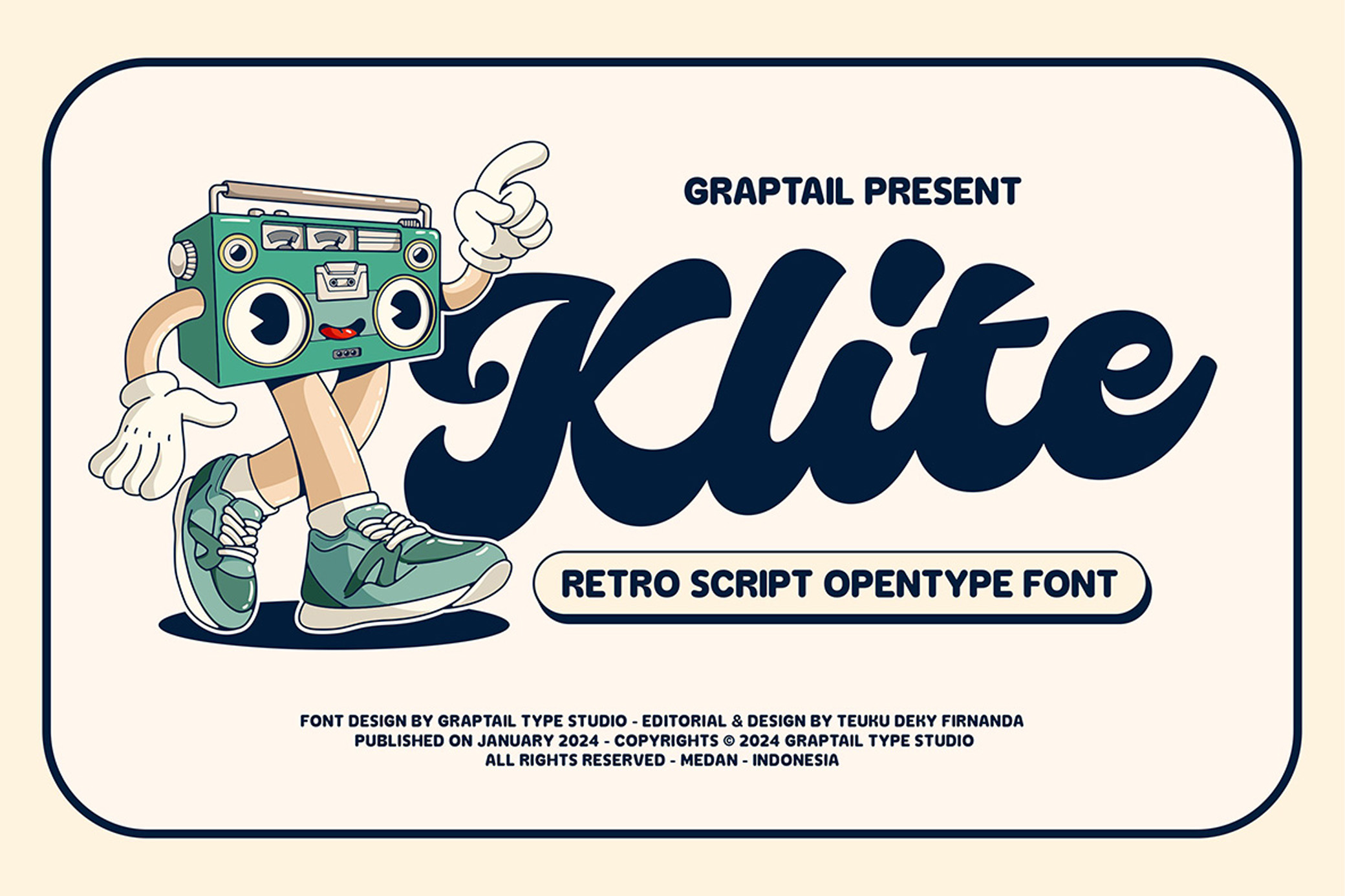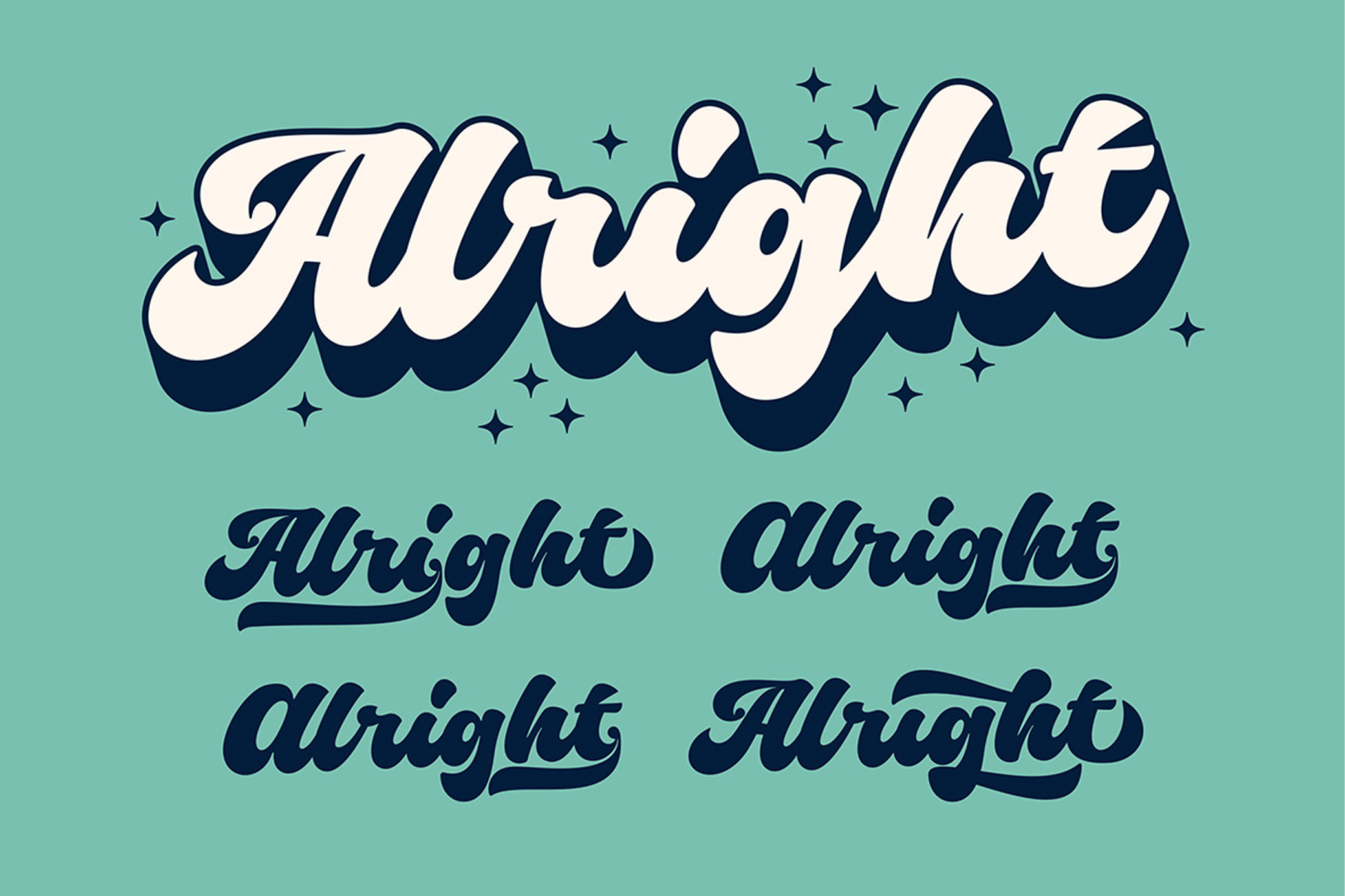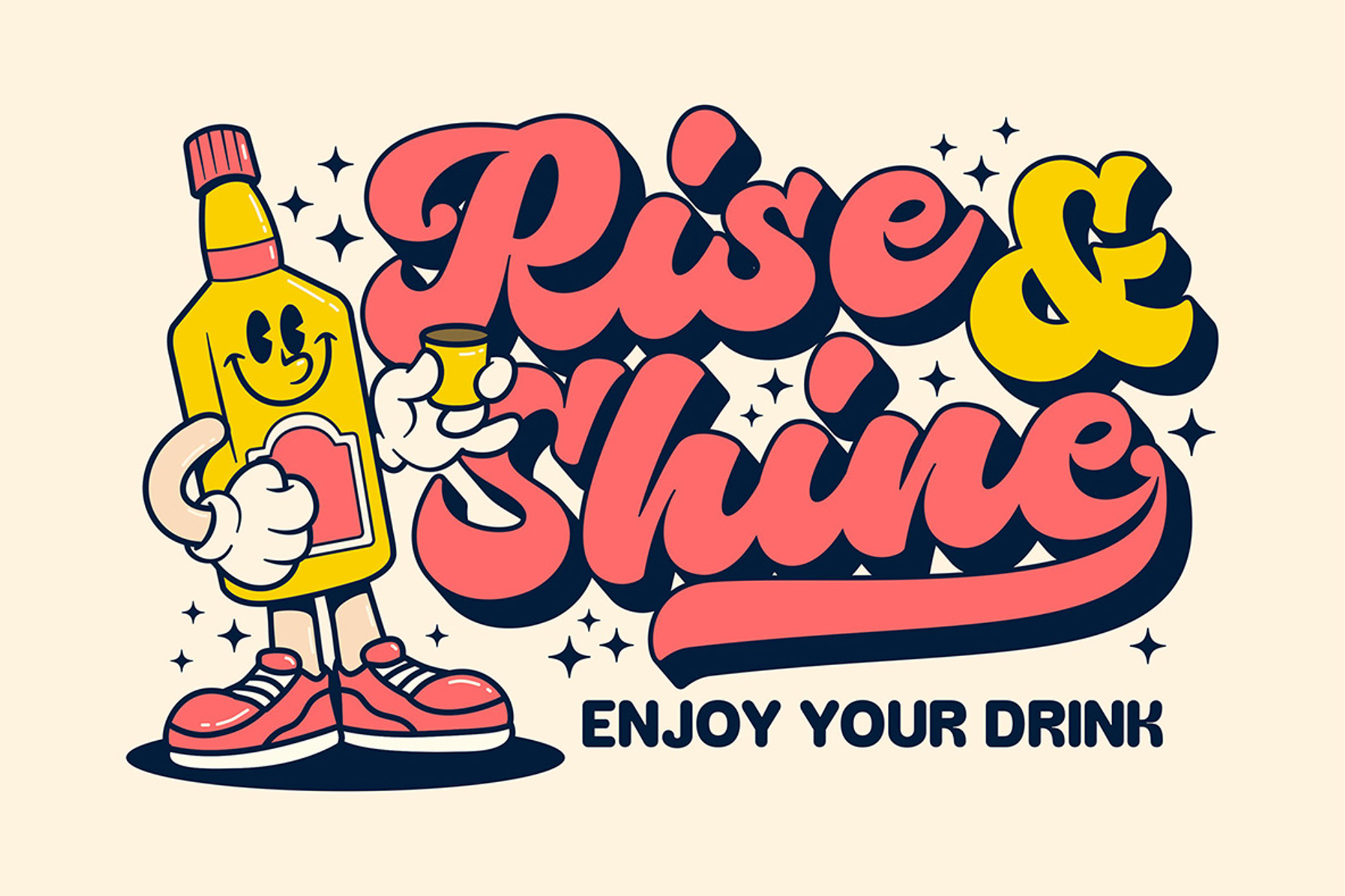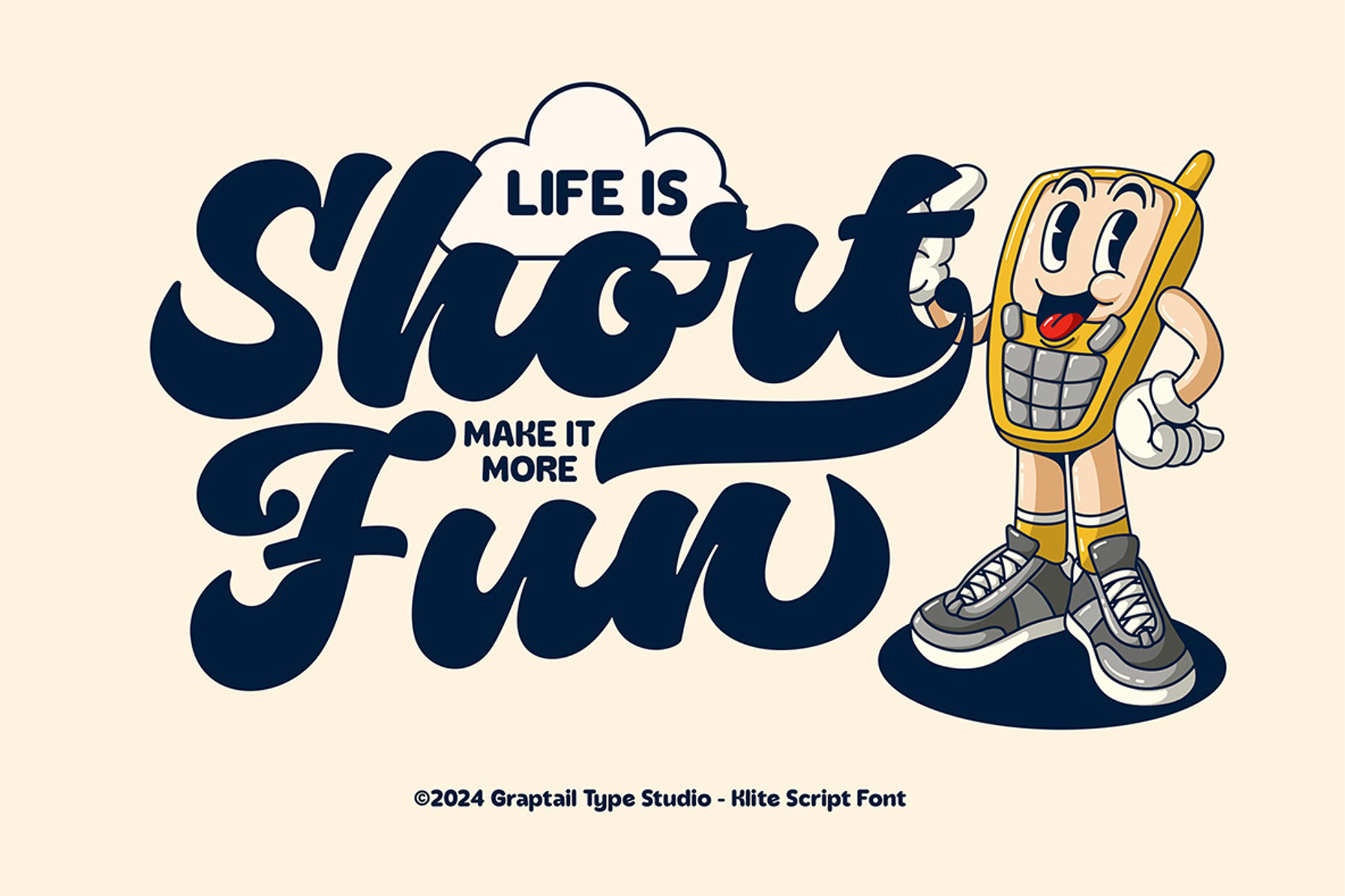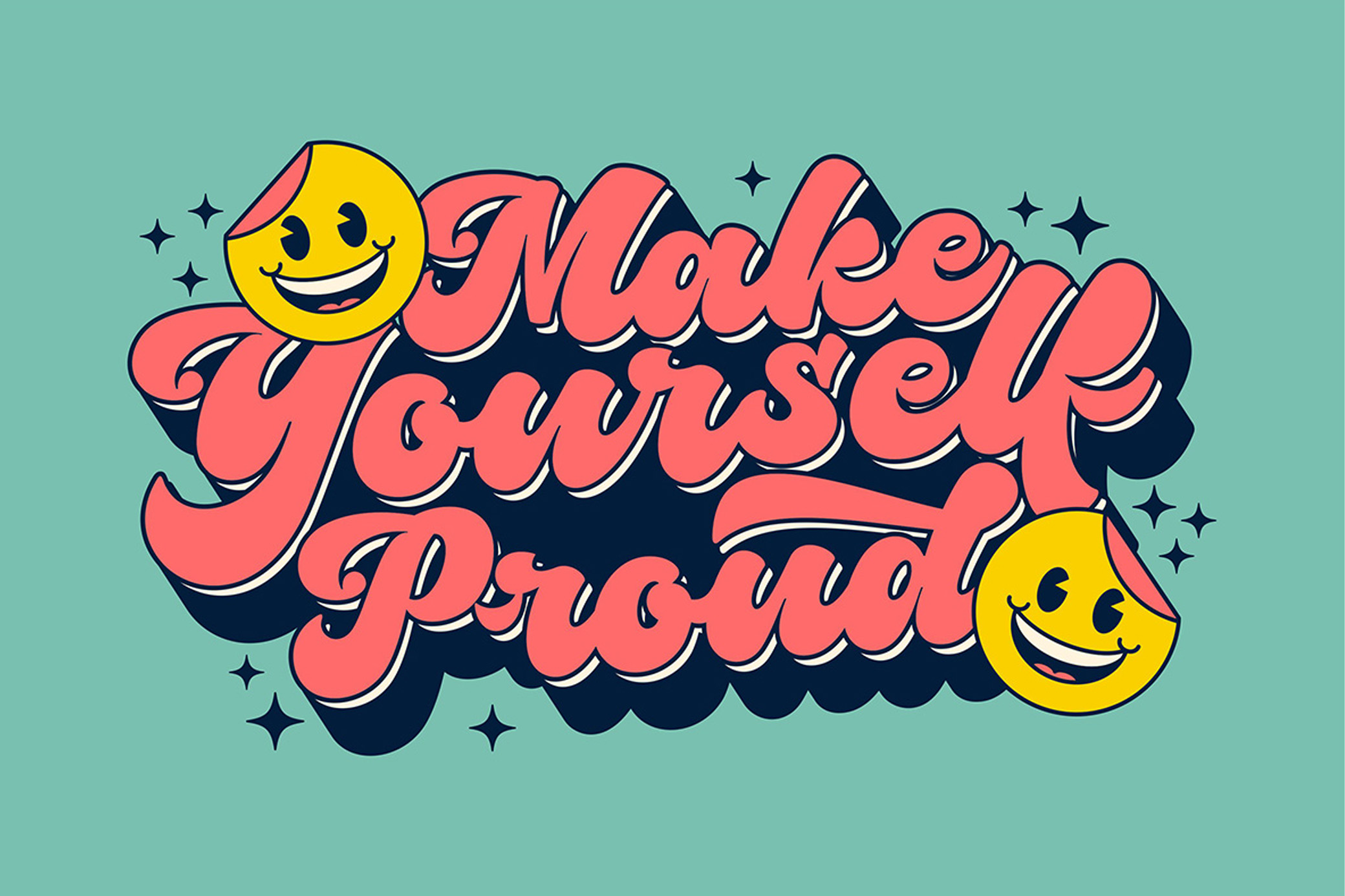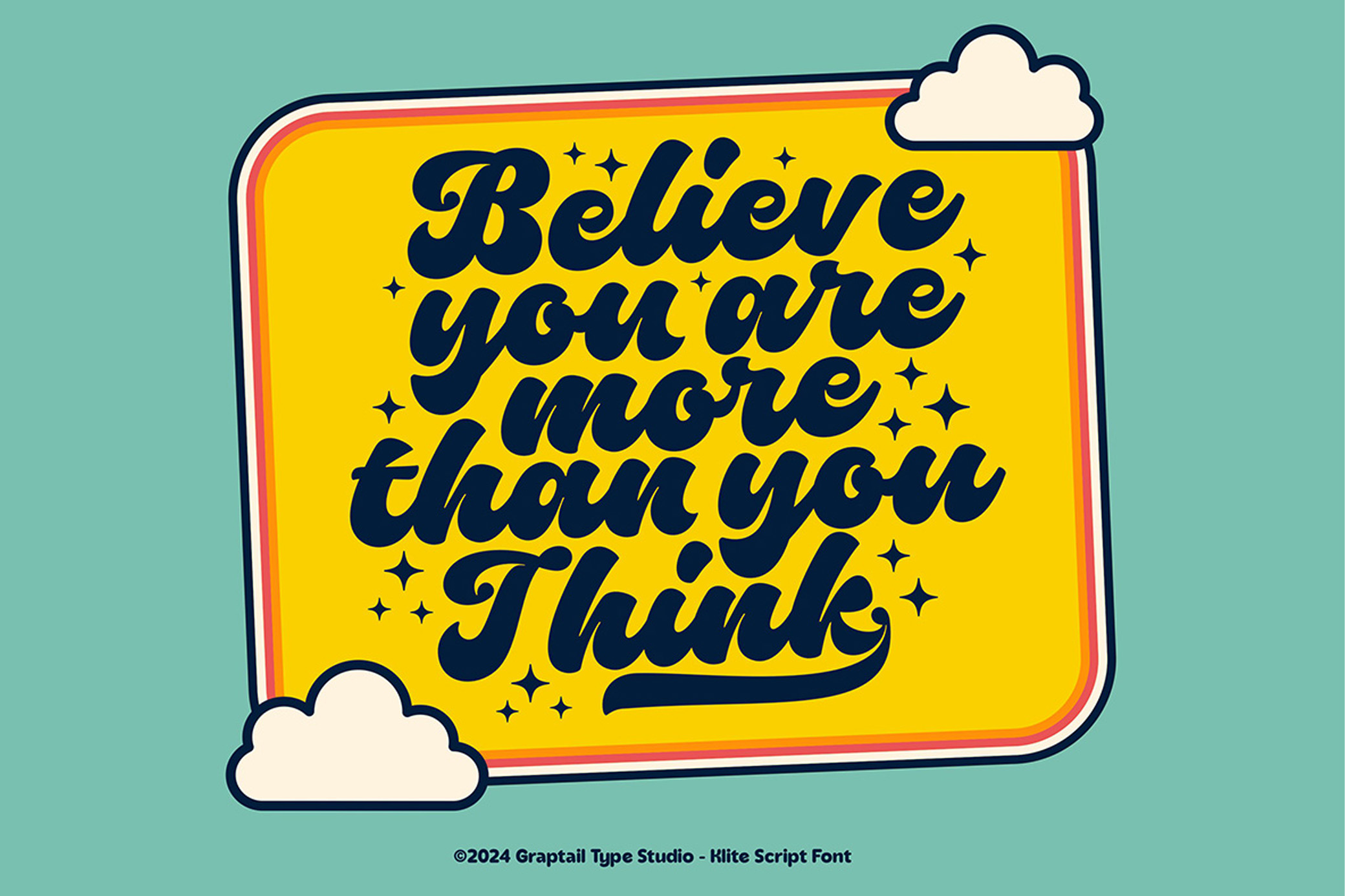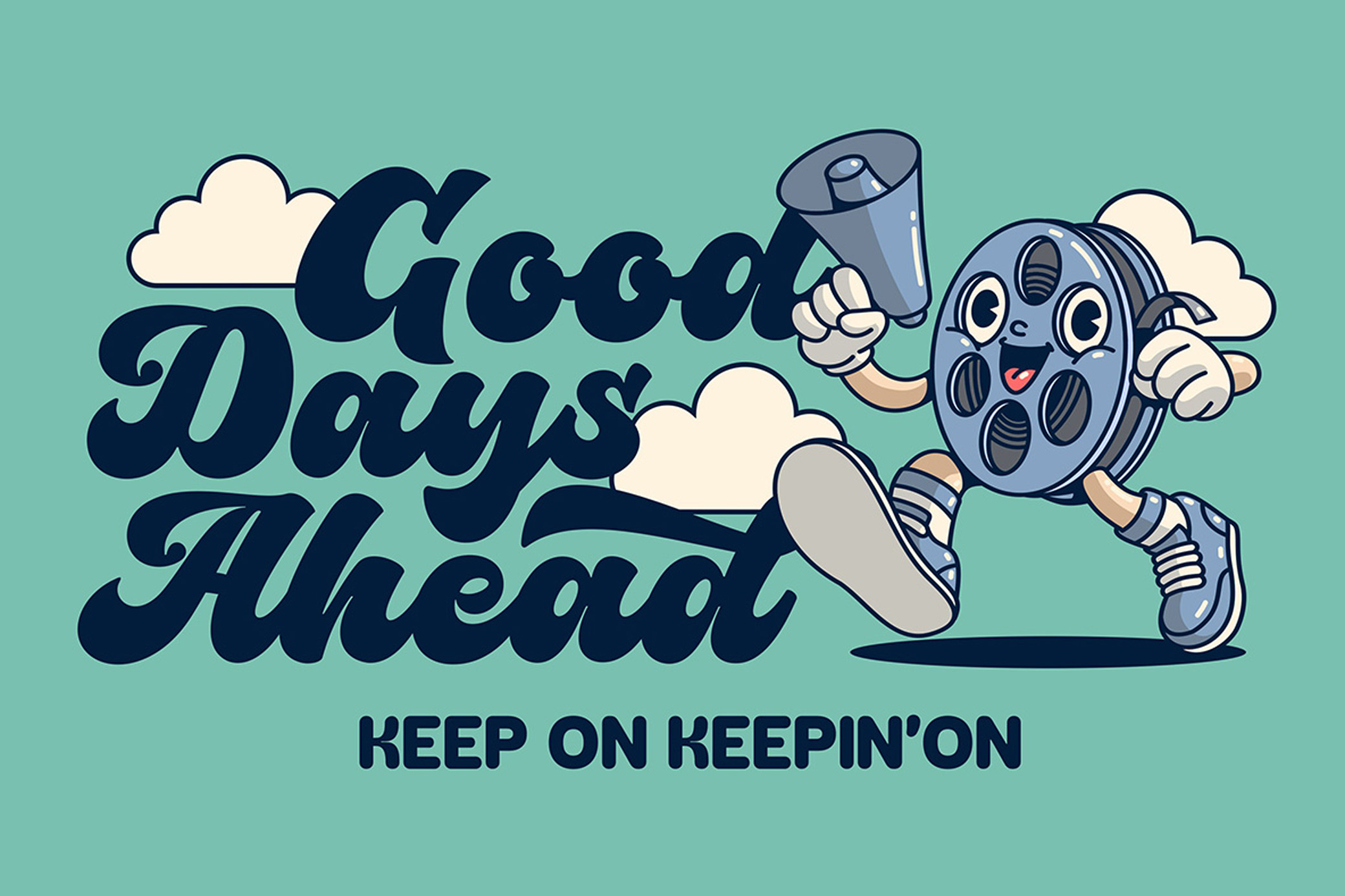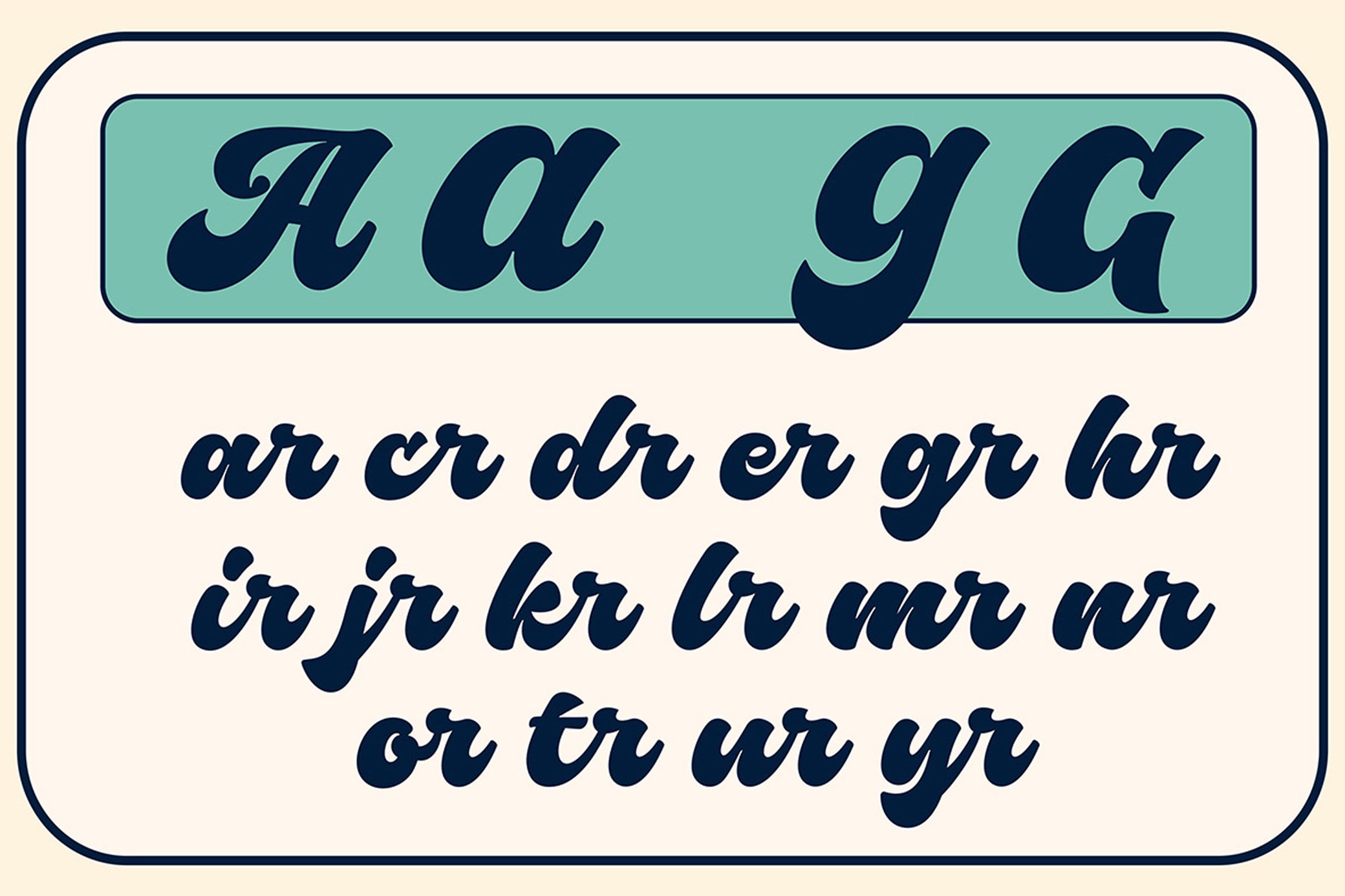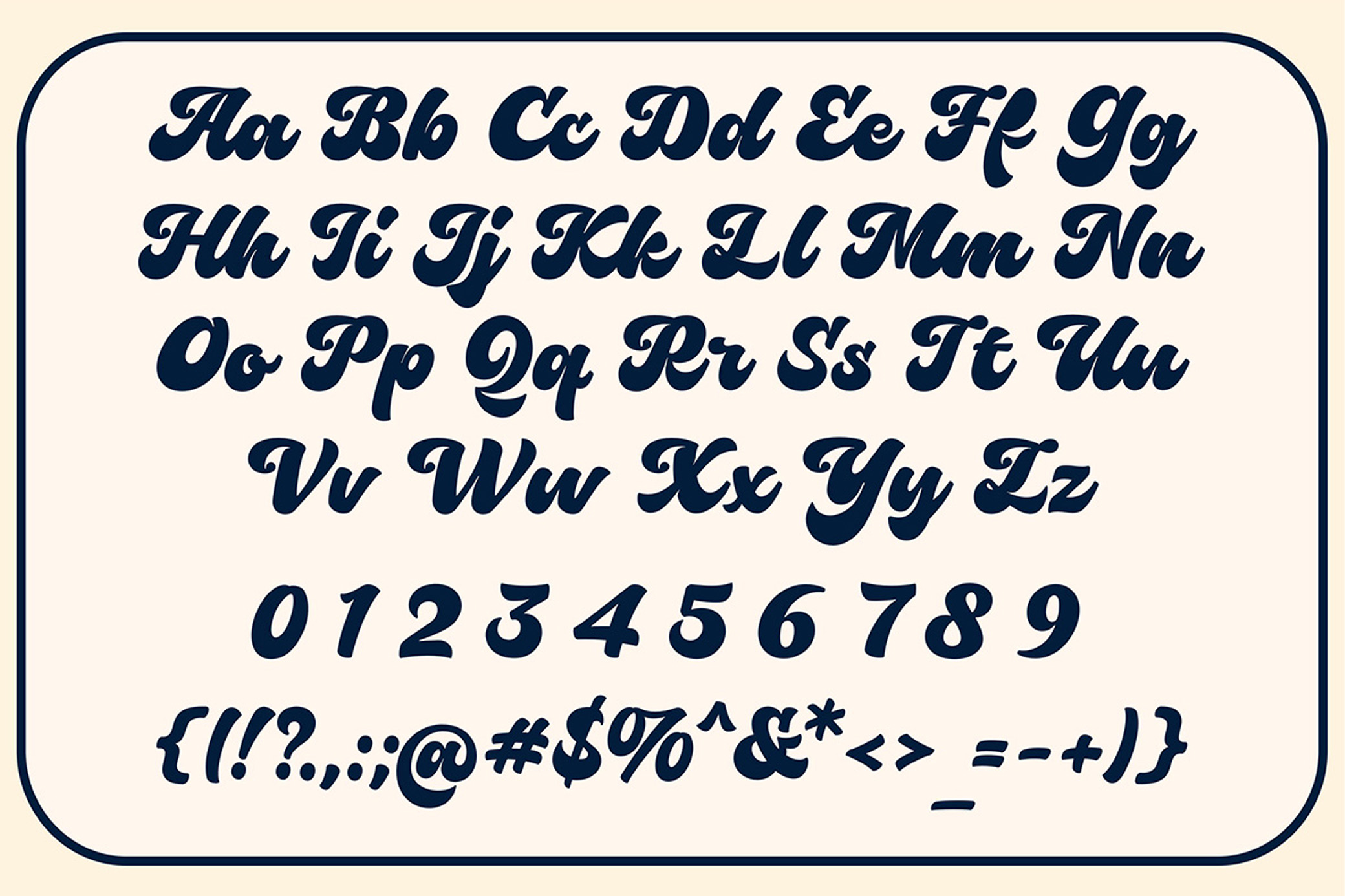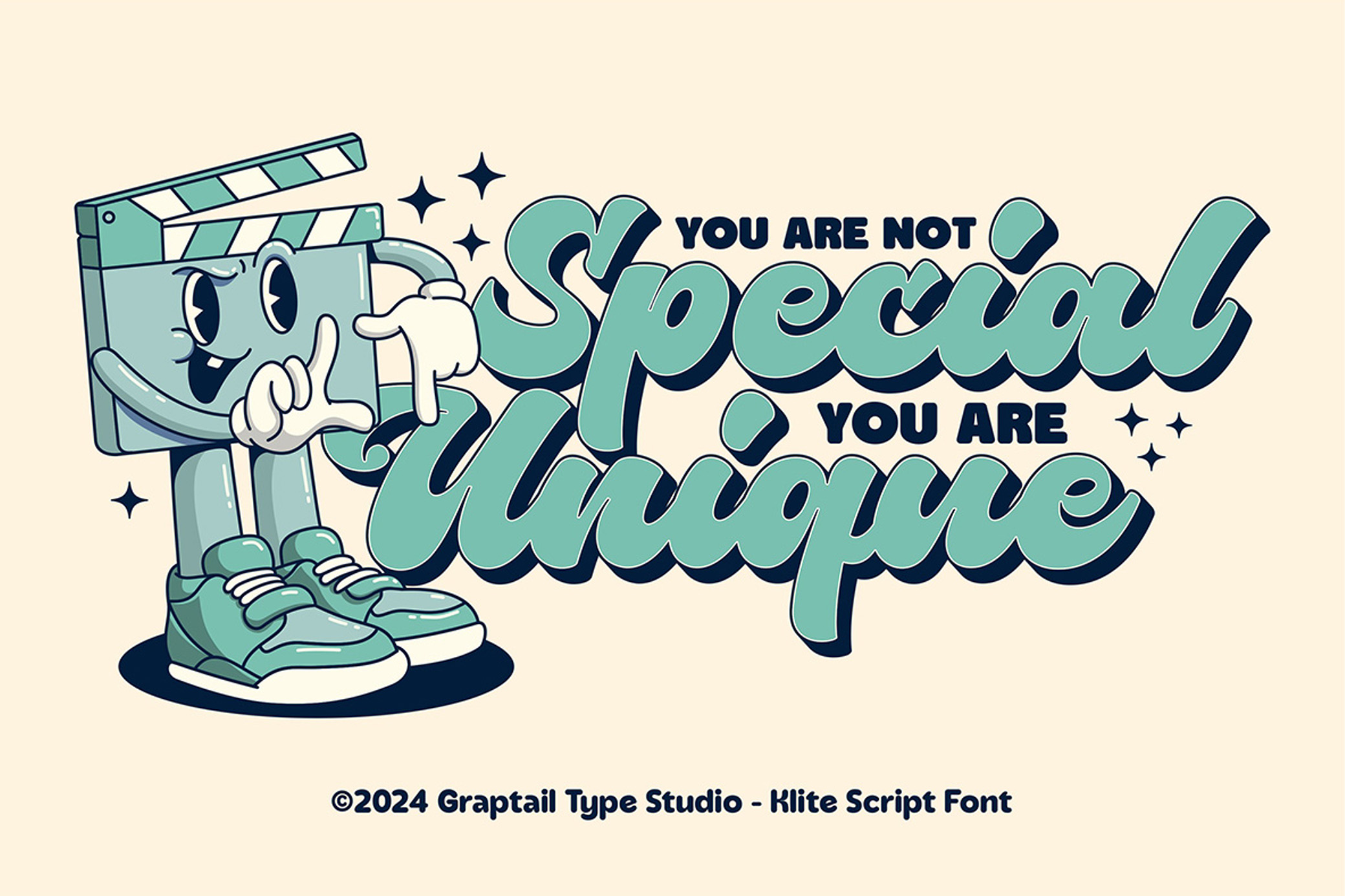
Klite Retro Script
Know nothing more retro & fun than rubber hose characters. Do you? Well, Klite Script is retro and fun too. Even as you look at it, you'll see Cuphead characters dancing their way through the golden age of cartoons.
The Klite retro script is a lively font with smooth, flowing lines, perfect for logos, posters, packaging, or any project that needs a hint of vintage charm. Each curve embodies the energy and fun of early animation, making your designs feel like a joyful throwback to a simpler, more animated time. The font includes a complete character set, alternates, ligatures, and multilingual support.